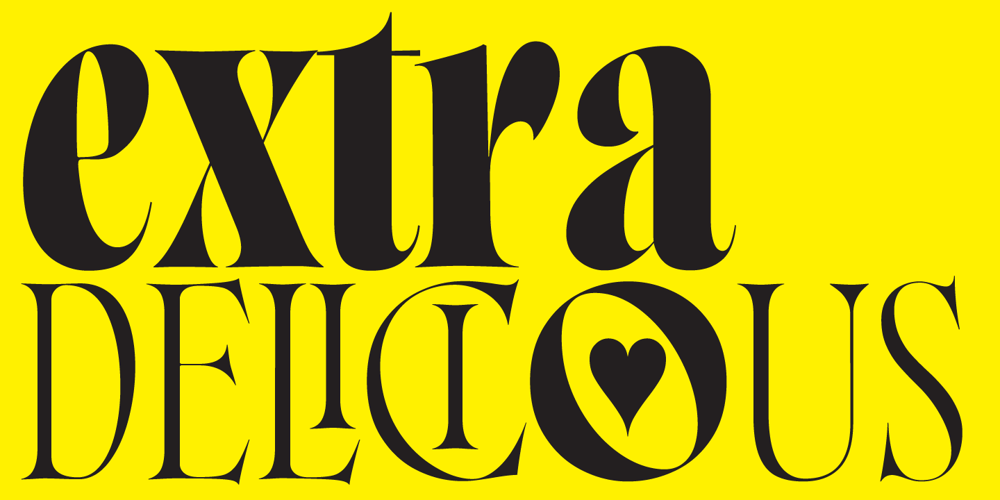
Norman Variable Font Family was designed by Giuseppe Salerno, Paco González and published by Resistenza. Norman Variable contains 2 styles and family package options. Norman Variable contains all the weights in between Norman Regular and Norman Fat.Get to know Norman, elegant and fashion forward. This new condensed and high contrast serif font is based on expansion giving a sense of self confidence. The oblique ax was specially added to get a contemporary and innovative sense. Norman is young and idealist, he has a distinctive sense of style. A complete set of ligatures and stylistic alternates is included, this will help the designer to customize and give a special look to any layout. We recommend to use it for big title, magazine, editorial purposes and display.